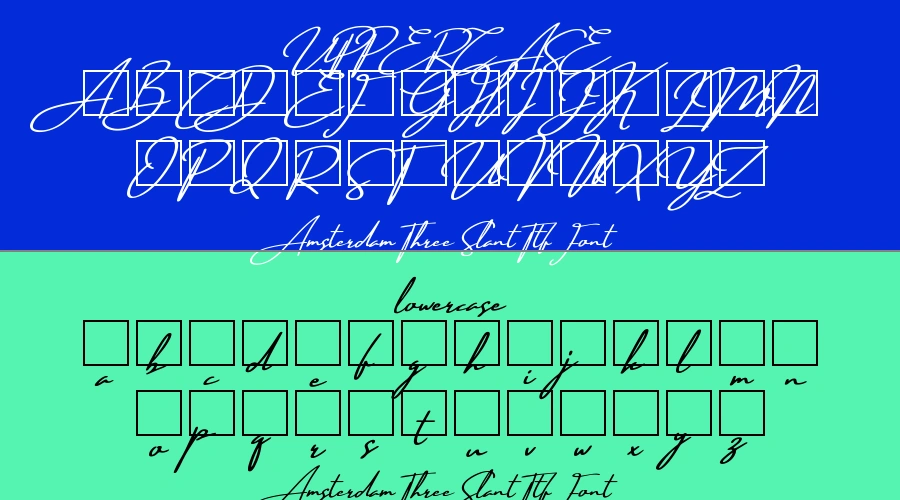
About Amsterdam Three Slant Ttf Font
Designed with precision, Amsterdam Three Slant Ttf Font merges architectural precision with consistency in every character. This versatility makes it particularly effective for brand identities, where professionalism and design heritage directly impact communication quality. Each letterform demonstrates meticulous craftsmanship.
Technical excellence shines through elements like consistent rhythm and lining figures, enhancing typographic versatility. In headlines settings, Amsterdam Three Slant Ttf Font proves its worth through superior file optimization. The thoughtful execution of terminal angle and artistic value ensures professional results.